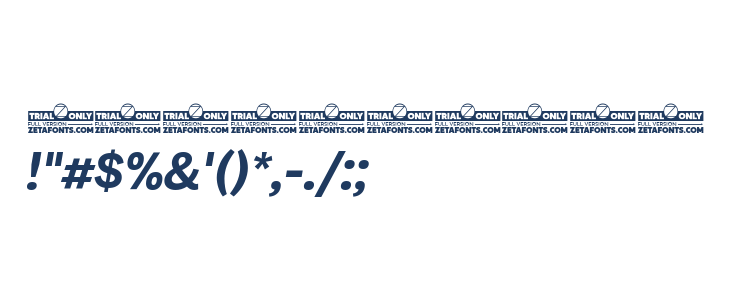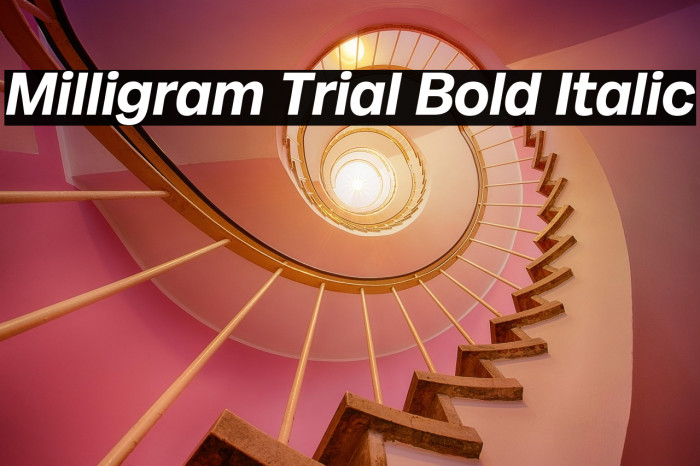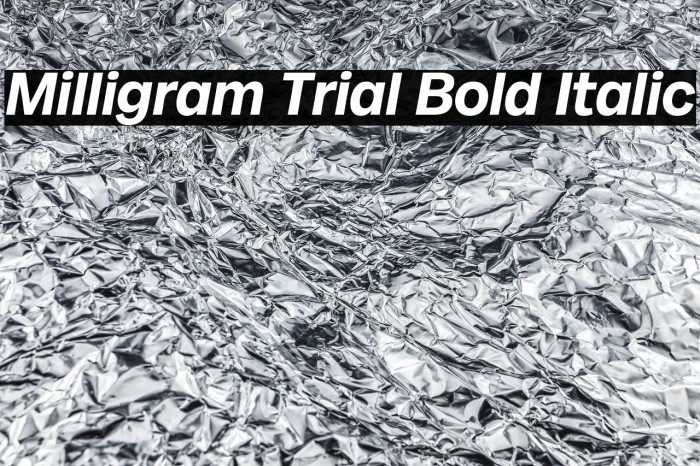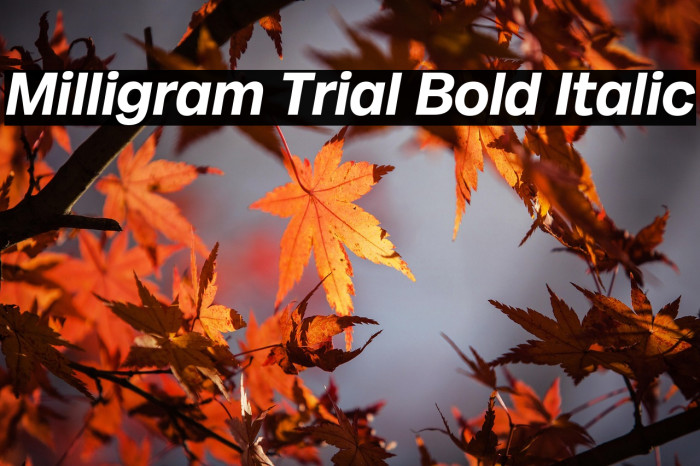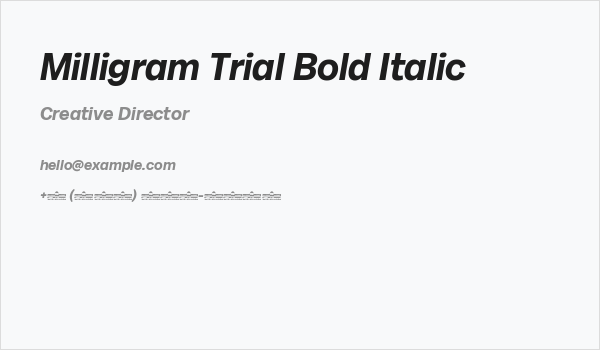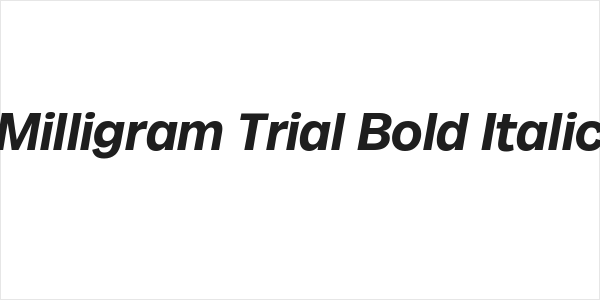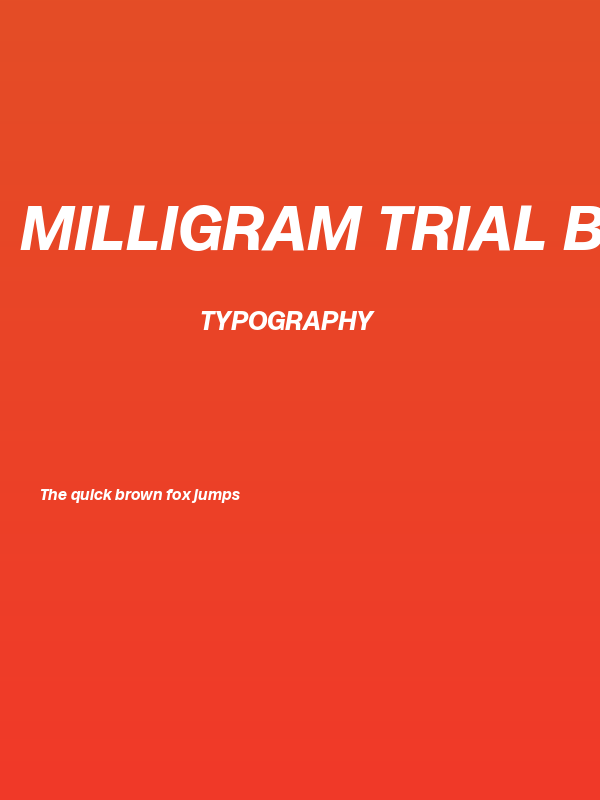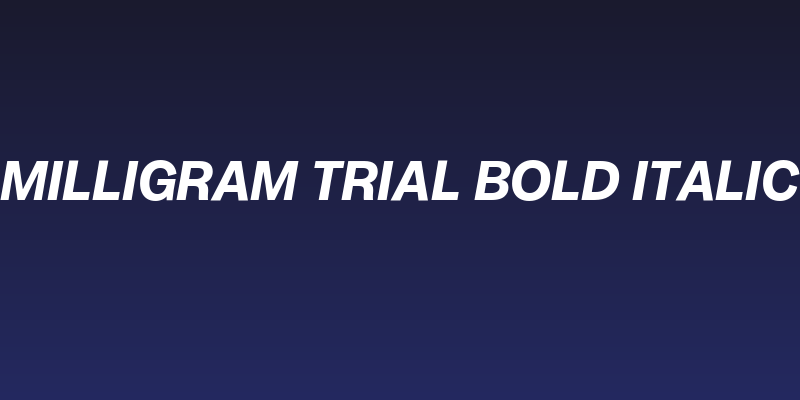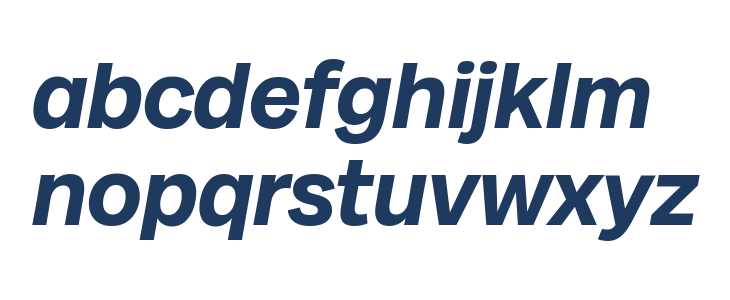
Milligram Trial Bold Italic Font
Milligram Trial Bold Italic Description
This font features a bold and italicized style, characterized by its strong and dynamic appearance. The letters are slightly slanted, giving a sense of movement and modernity. The strokes are thick and uniform, contributing to its boldness, while the italic angle adds a touch of elegance. The font maintains a clean and professional look, making it versatile for various design needs. Its sans-serif nature ensures readability and clarity, suitable for both digital and print media. The character set includes uppercase and lowercase letters, numbers, and a selection of punctuation marks, providing comprehensive coverage for most text requirements.